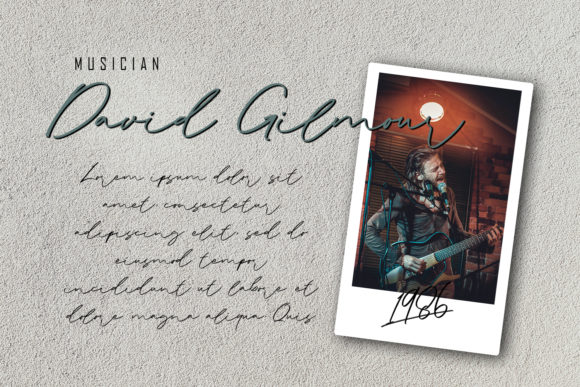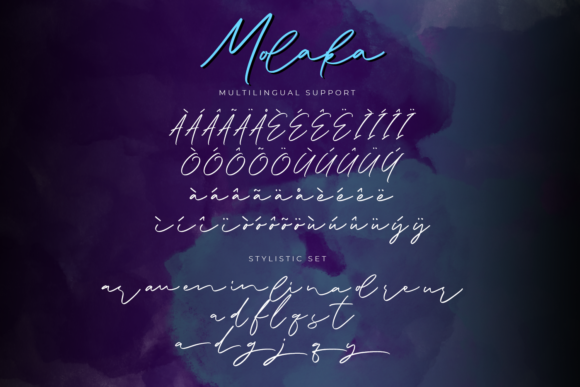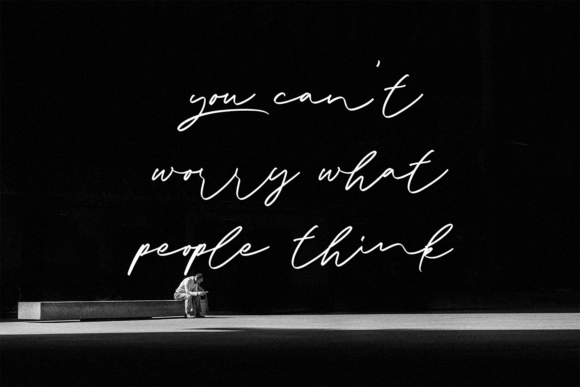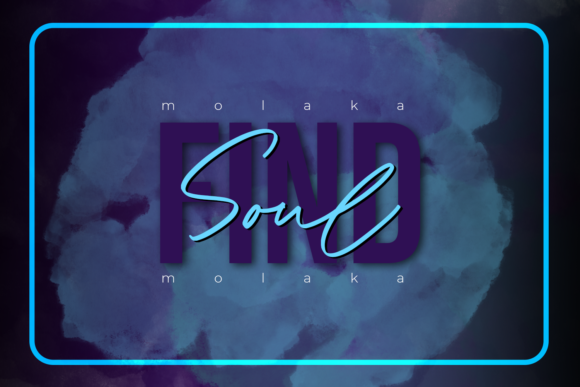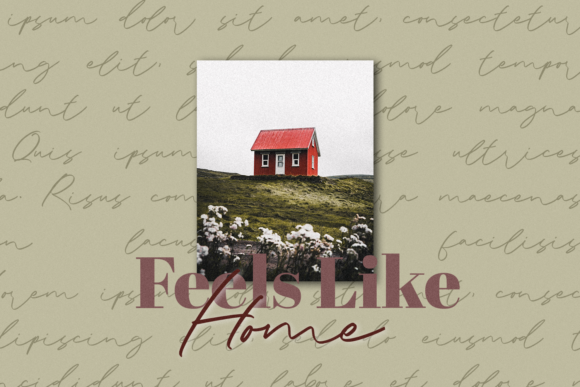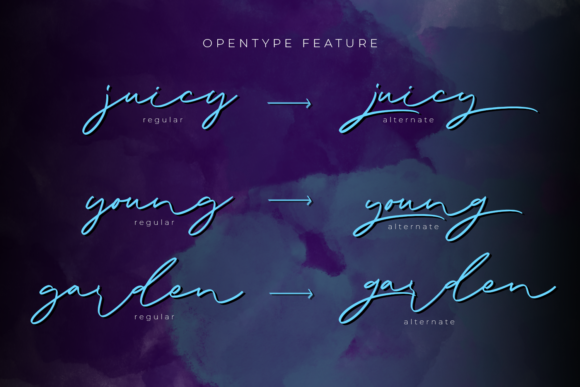
Molaka Font – Free Download
Introduction to Molaka Font
Molaka is a fashionable and delicate script font.
No matter the topic, this font will be an incredibly asset to your fontsโ€™ library, as it has the potential to elevate any creation .
Key Features of Molaka Font
Why Choose Molaka Font?
Molaka Font offers exceptional quality and versatility, making it a valuable addition to your design toolkit. Whether you’re creating for personal projects or commercial use, Molaka Font delivers professional results.